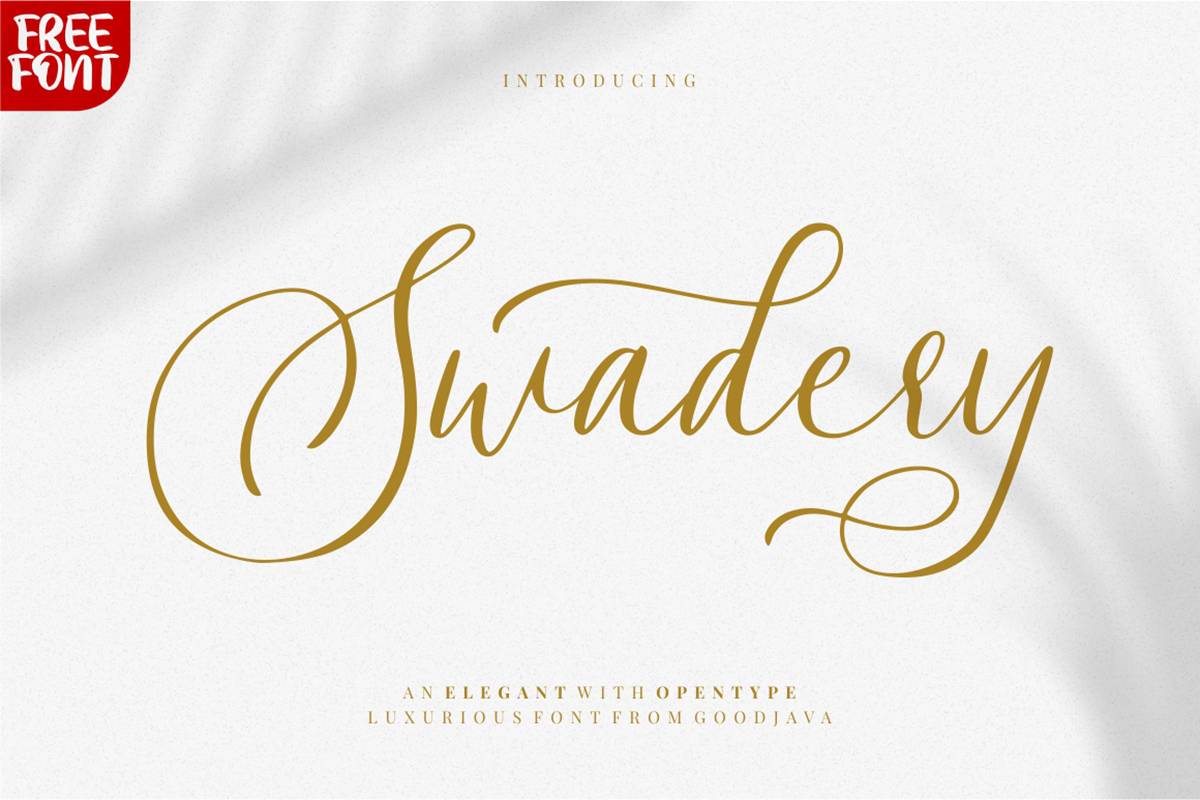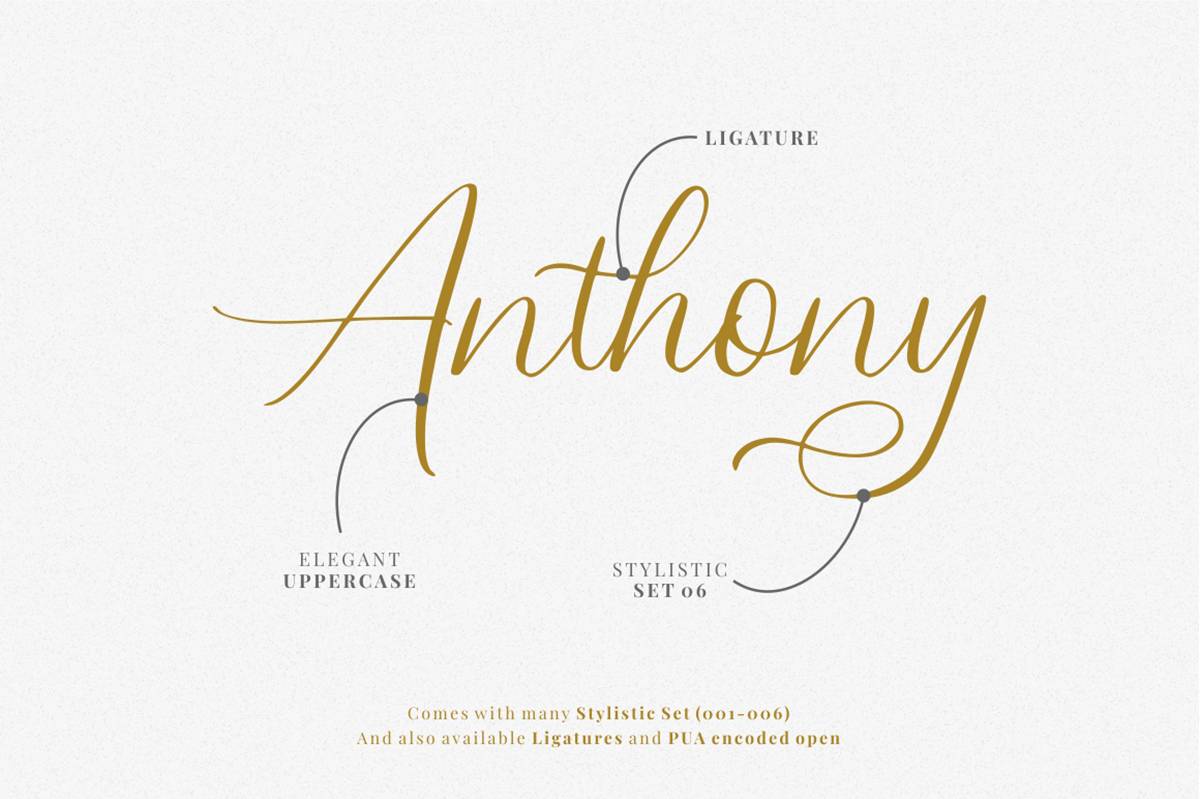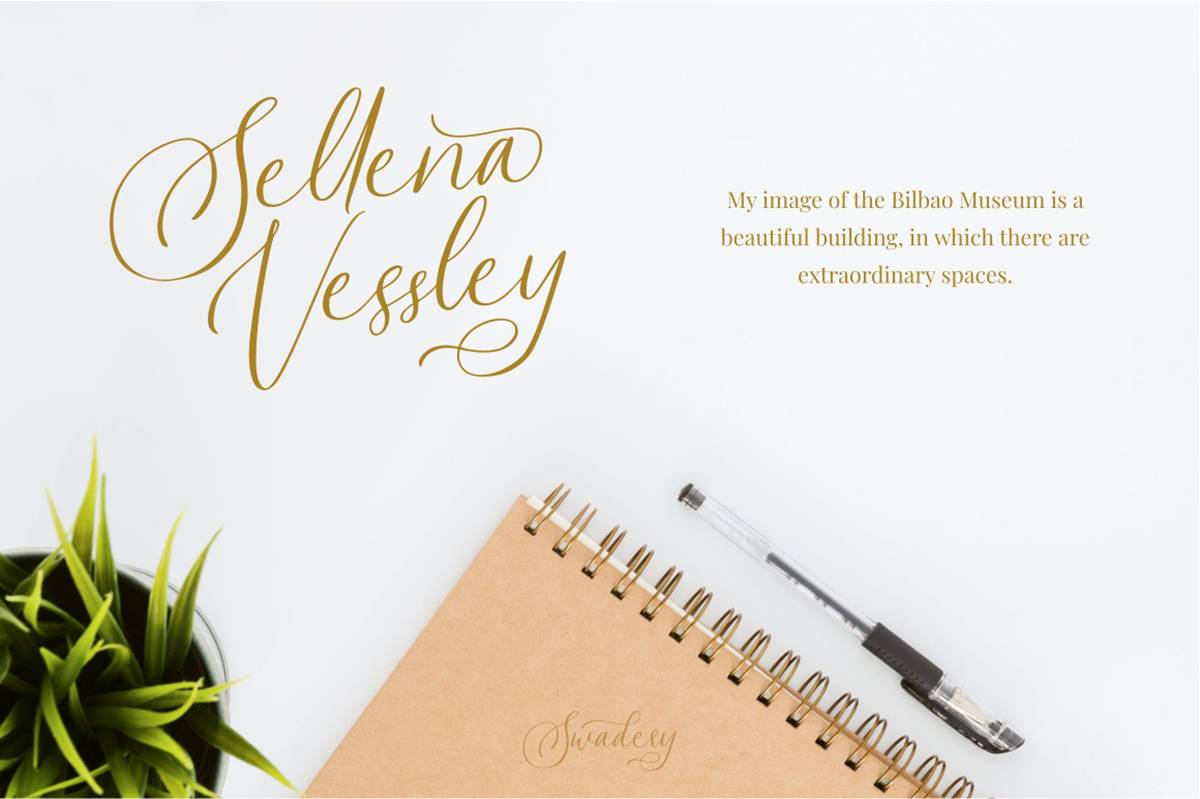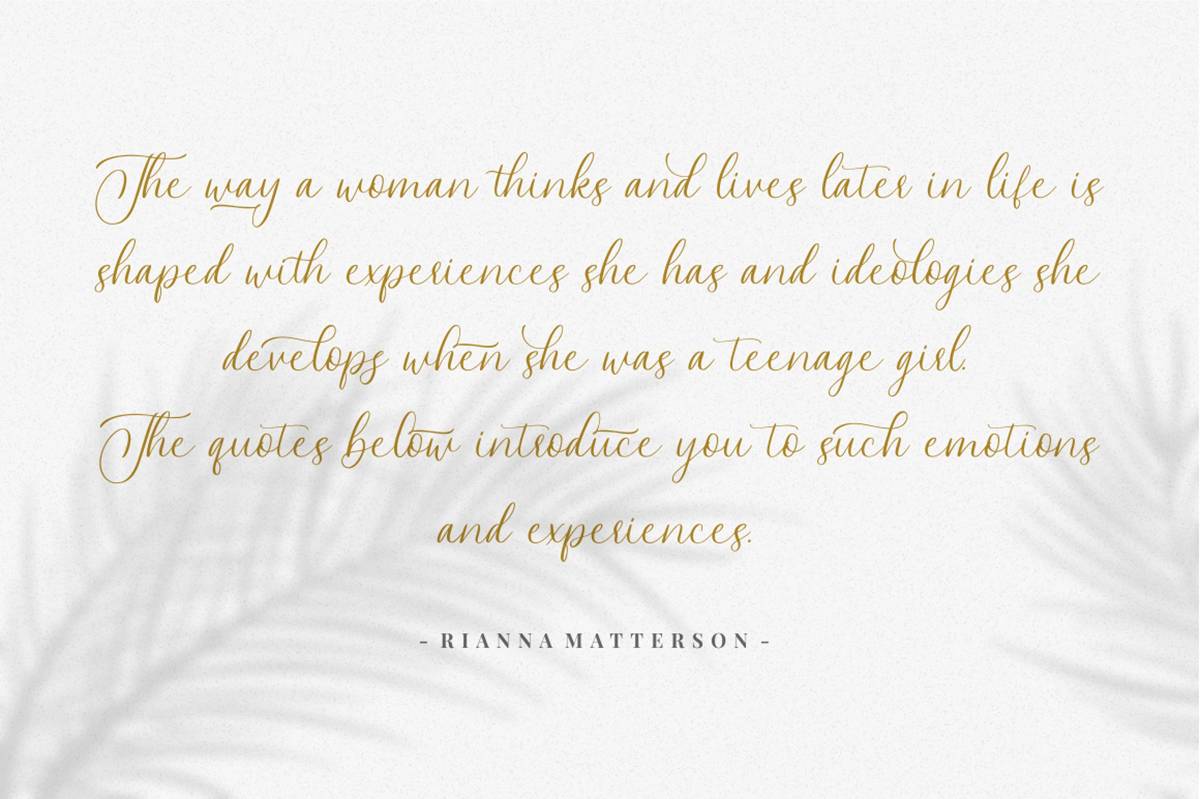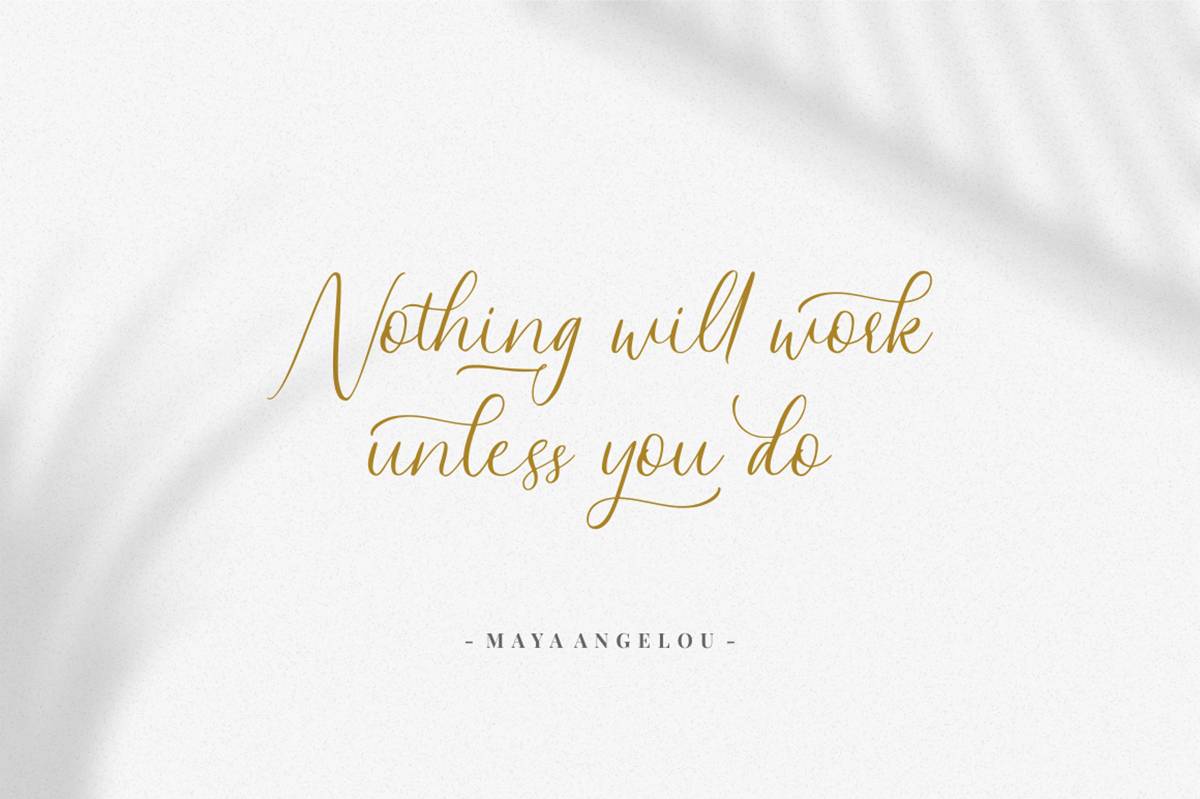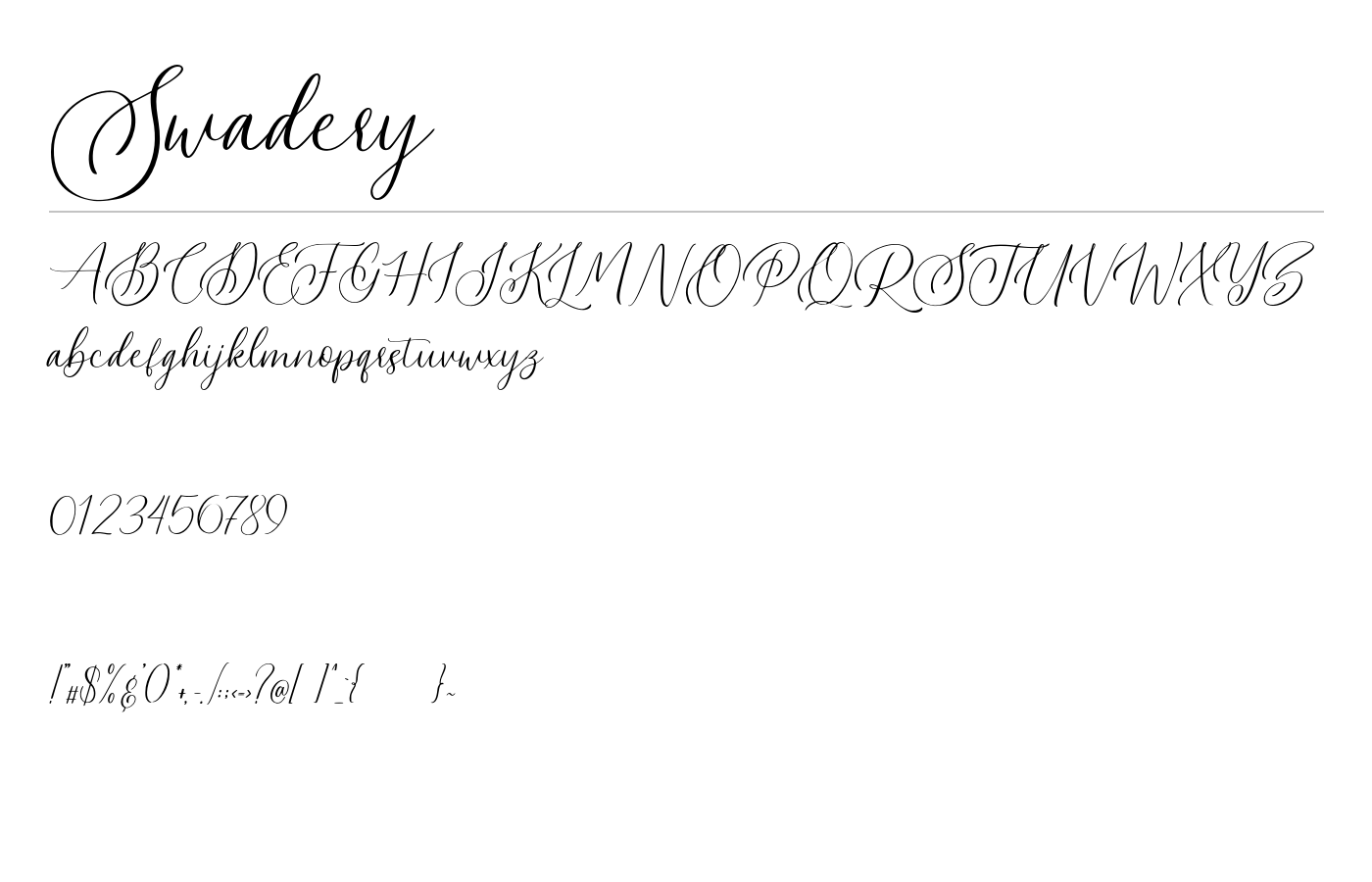
Swadery is an elegant script font featuring delicate, flowing strokes with high contrast that evoke a refined, sophisticated feel. Its slender letterforms, graceful curves, and decorative swashes make it ideal for luxury branding, wedding invitations, and stylish editorial projects that seek a touch of classic charm. This font works beautifully in headlines and display settings where its intricate design can truly shine.
Swadery Font
About Swadery Font
| Designer | Good Java Studio |